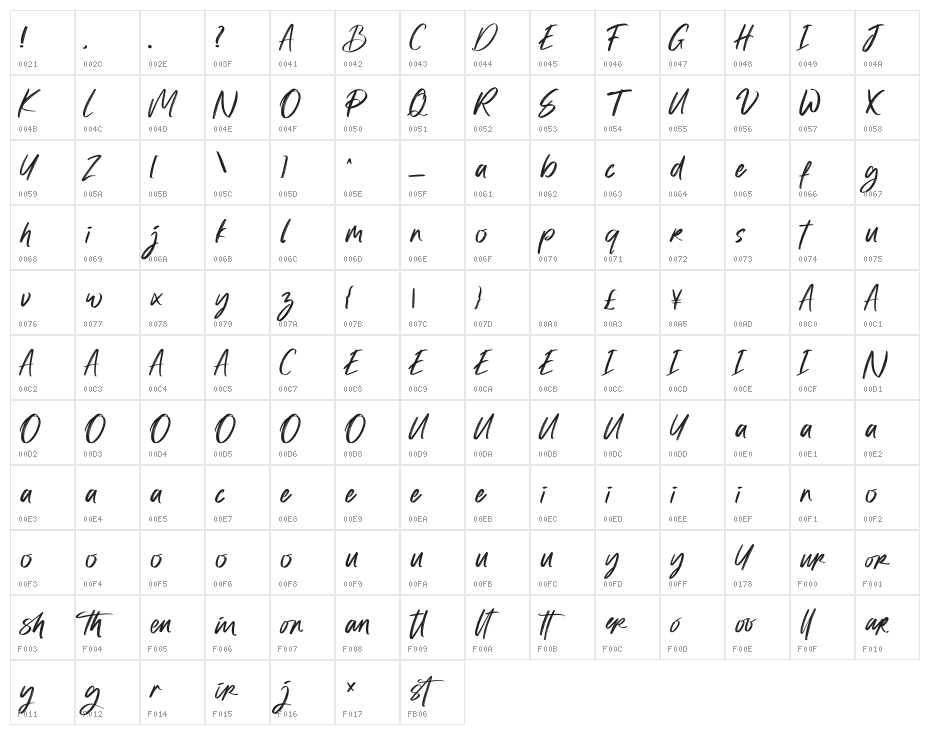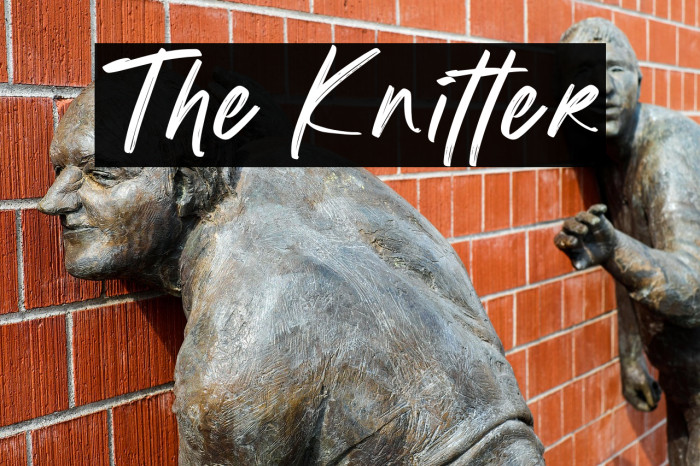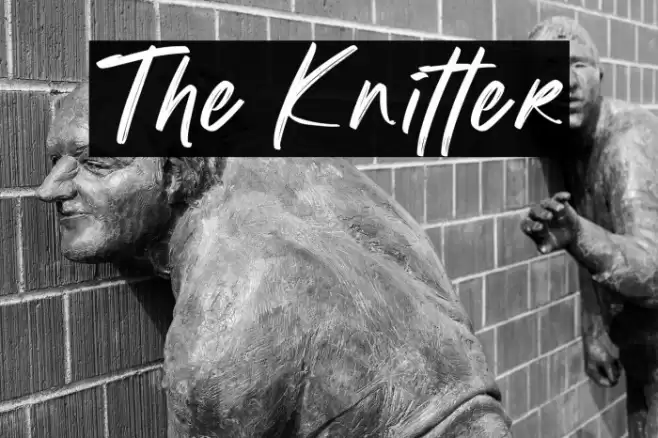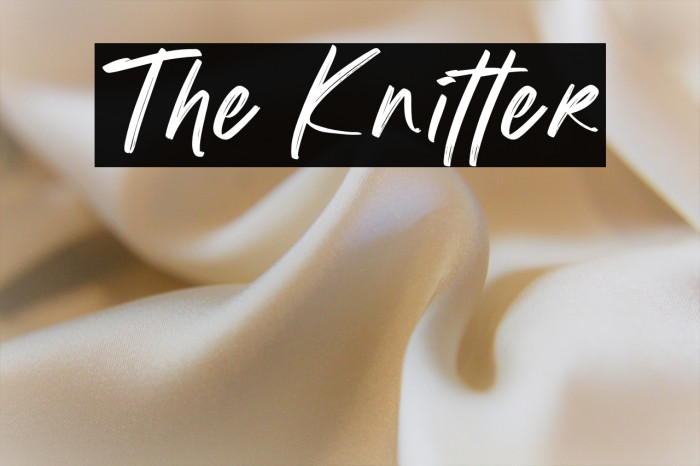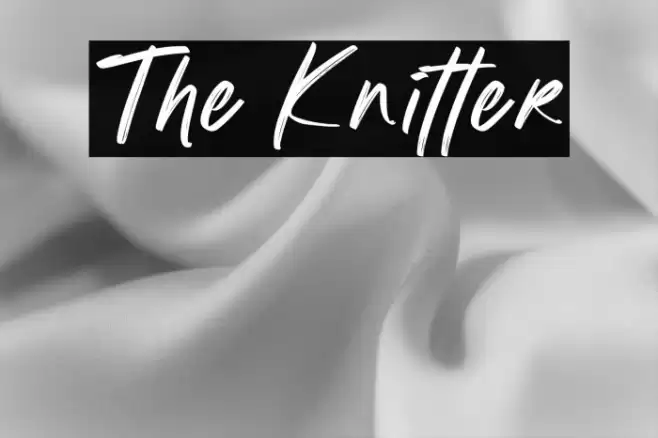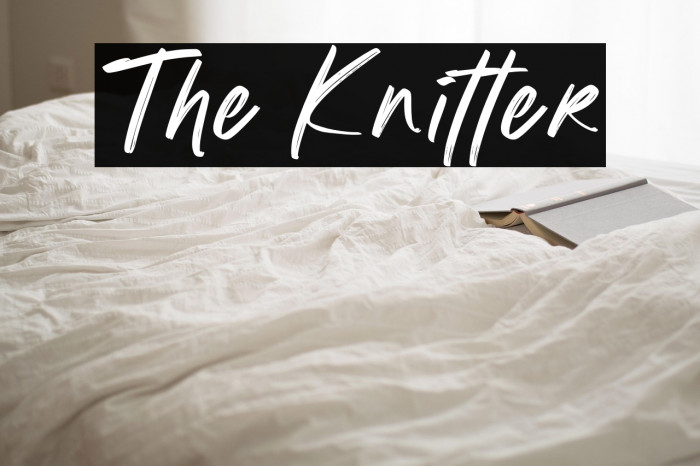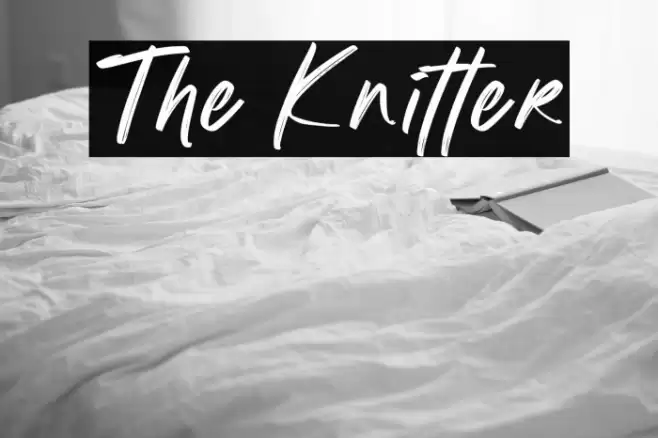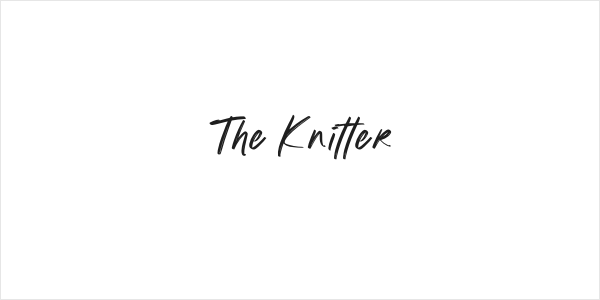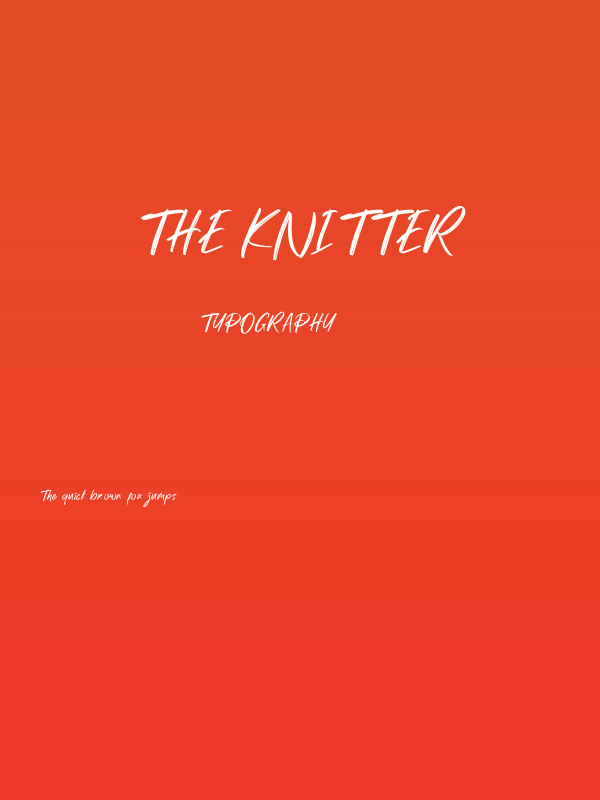
The Knitter Font
The Knitter Description
This font features a dynamic and expressive handwritten style, characterized by its fluid strokes and natural flow. The uppercase letters are bold and slightly slanted, giving a sense of movement and energy. The lowercase letters maintain a consistent style, with smooth curves and a casual elegance. The overall appearance is both artistic and approachable, making it suitable for a variety of creative projects. The font's design is reminiscent of personal handwriting, adding a personal touch to any text. It is well-suited for use in branding, invitations, and any design that requires a personal, handcrafted feel.
| Proposed Projects | Ideal for branding, invitations, greeting cards, and creative projects requiring a personal touch. |